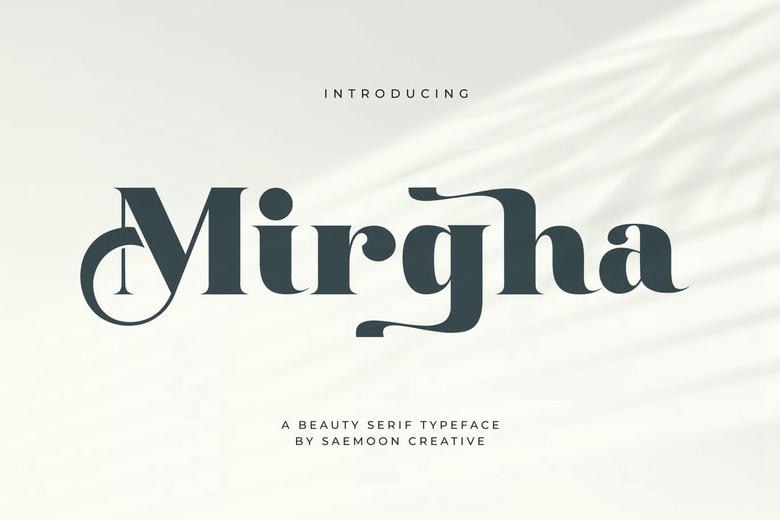
Mirgha Font
Mirgha is a serif font that is both classical and with a touch of modern art. The letters are developed in soft curves, thick stems, and simple ornamental objects to give them a luxurious and very readable look. The has been made to appear elegant through the use of the curving shape of M and the peculiarity of the g and h enable Mirgha to shine in premium design works.
The font is ideal in branding to include cosmetic packaging, editorial designs, fashion logos, product packaging, wedding invitations, and social media designs that seek to achieve a high-end and sophisticated appearance. Mirgha has an attractive visual appeal with its contemporary serif style and artistic letter construction.
Mirgha Serif Font